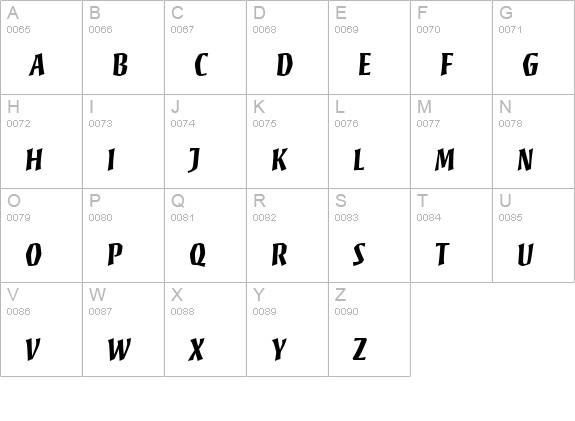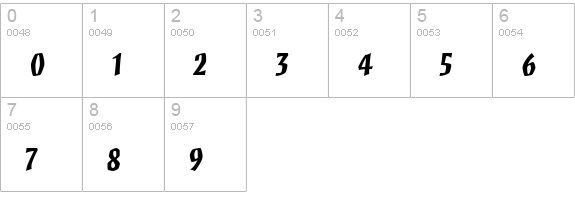
Mezz Web Pro Bold is a strong, high-contrast variant in the Mezz typeface family \xE2\x80\x94 well suited to headlines, attention-grabbing titles, and strong calls-to-action.
Introducing Mezz Web Pro Bold font, a striking and versatile typeface designed to make a bold statement in your designs. With its clean lines and modern aesthetic, Mezz Web Pro Bold is perfect for headlines, logos, posters, and more. This premium font exudes confidence and sophistication, making it ideal for projects that demand attention. The best part? Mezz Web Pro Bold font is available for free download at FontsMarket.com. Now you can elevate your designs with this high-quality font without breaking the bank. Don't miss out on this opportunity to add a touch of elegance to your projects with Mezz Web Pro Bold font. Download it today and unleash your creativity!